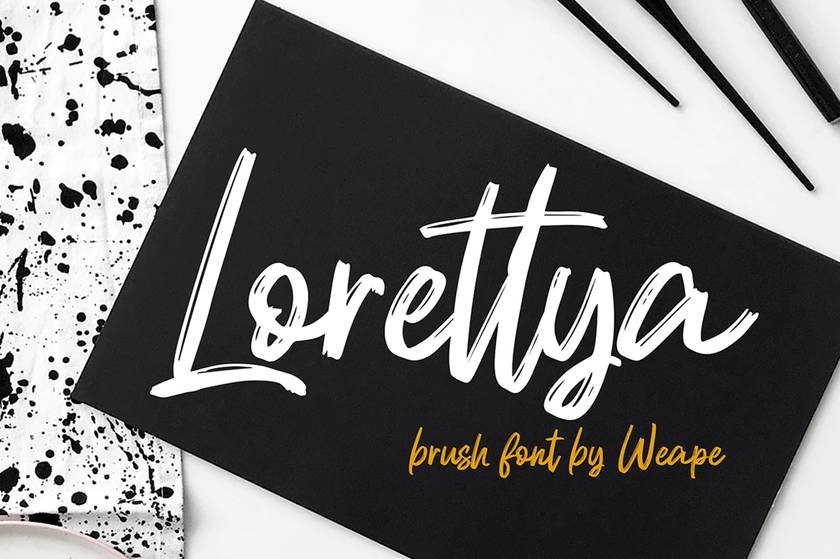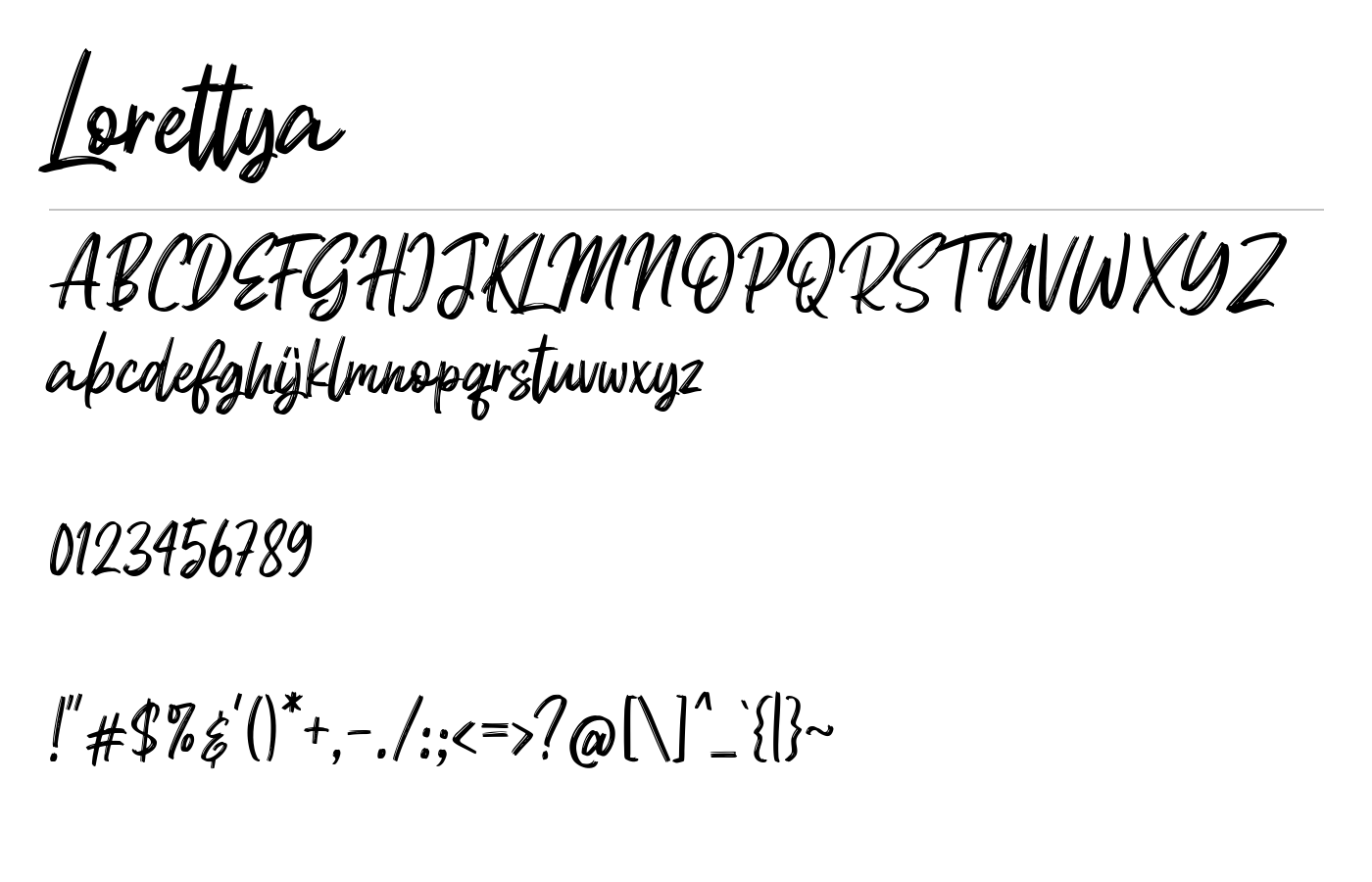
Lorettya is a lively, handwritten script font with a casual yet confident style, featuring smooth, flowing strokes and a natural brush texture. Its upright, slightly condensed letterforms with moderate contrast make it perfect for adding a dynamic, personal touch to branding, invitations, and creative projects that seek an approachable yet stylish feel. This font works especially well in headlines and logos where a human, artistic flair is desired without sacrificing readability.
Lorettya Font
About Lorettya Font
| Font family | Lorettya Font |
| Designer | Wahyu Andi Prasetiyo |